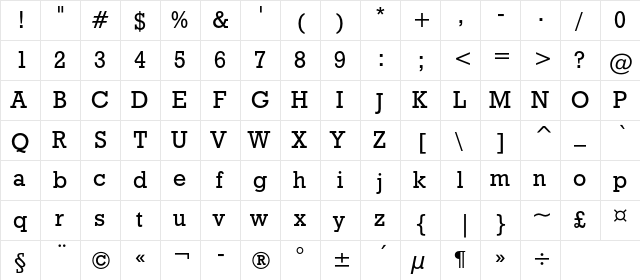
GeoSlb712MediumC BT Regular
Design Context for GeoSlb712MediumC BT Typeface
GeoSlb712MediumC BT offers clean, dependable letterforms without strong stylistic allegiance, making it a practical choice for designers who need flexibility.
Pro Tip: Use GeoSlb712MediumC BT in both headline and body roles to test its range before committing to a single application.